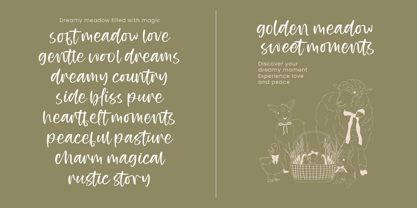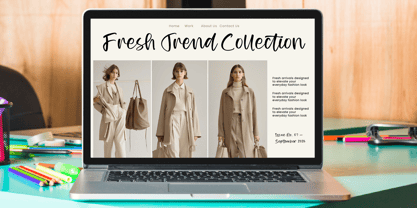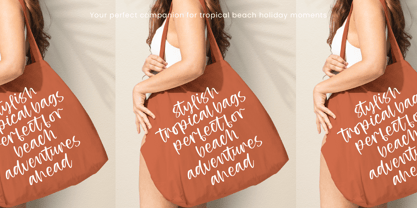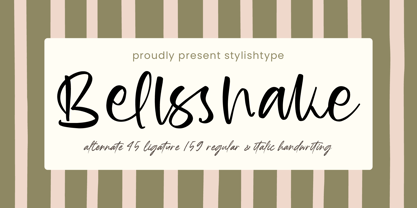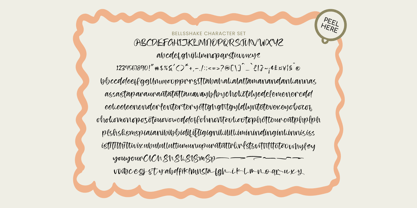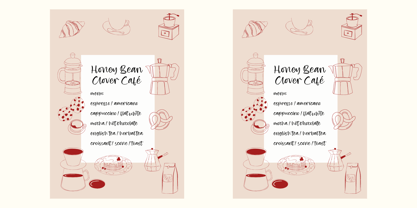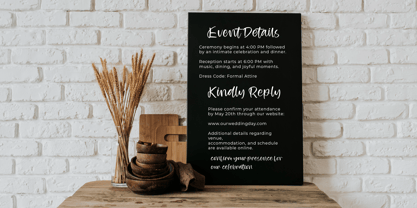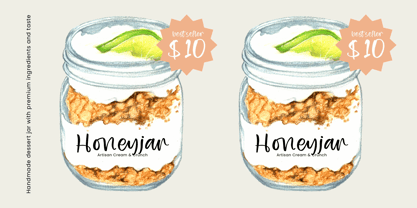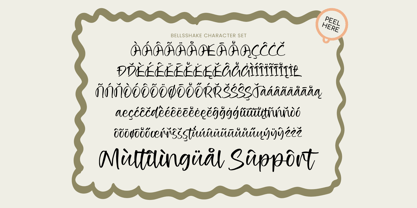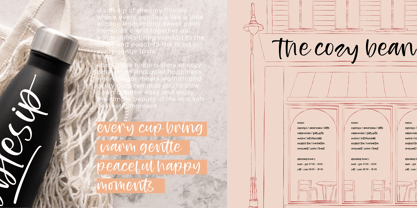
Bellsshake
by Stylishtype Studio
The Bellsshake Font Family was designed by Heru Utama Putra and published by Stylishtype Studio. Bellsshake contains 2 styles and family package options. More about this family
Elevate your design projects with a touch of authentic elegance and organic movement. Bellsshake – Handwritten Brush Script is a premium typeface meticulously crafted to bring a human-centric feel to your digital and print compositions. By blending expressive brush strokes with a fluid, natural rhythm, this font serves as the ultimate choice for creators seeking to establish a strong visual identity that resonates with authenticity and style.
Discover the ultimate solution for sophisticated branding and high-end packaging that demands attention. Bellsshake – Handwritten Brush Script is perfect for luxury branding, wedding stationery, editorial design, and lifestyle photography overlays. Its artistic flair ensures that every headline and logo feels custom-made, providing a bespoke aesthetic that elevates products above the competition in a crowded marketplace.